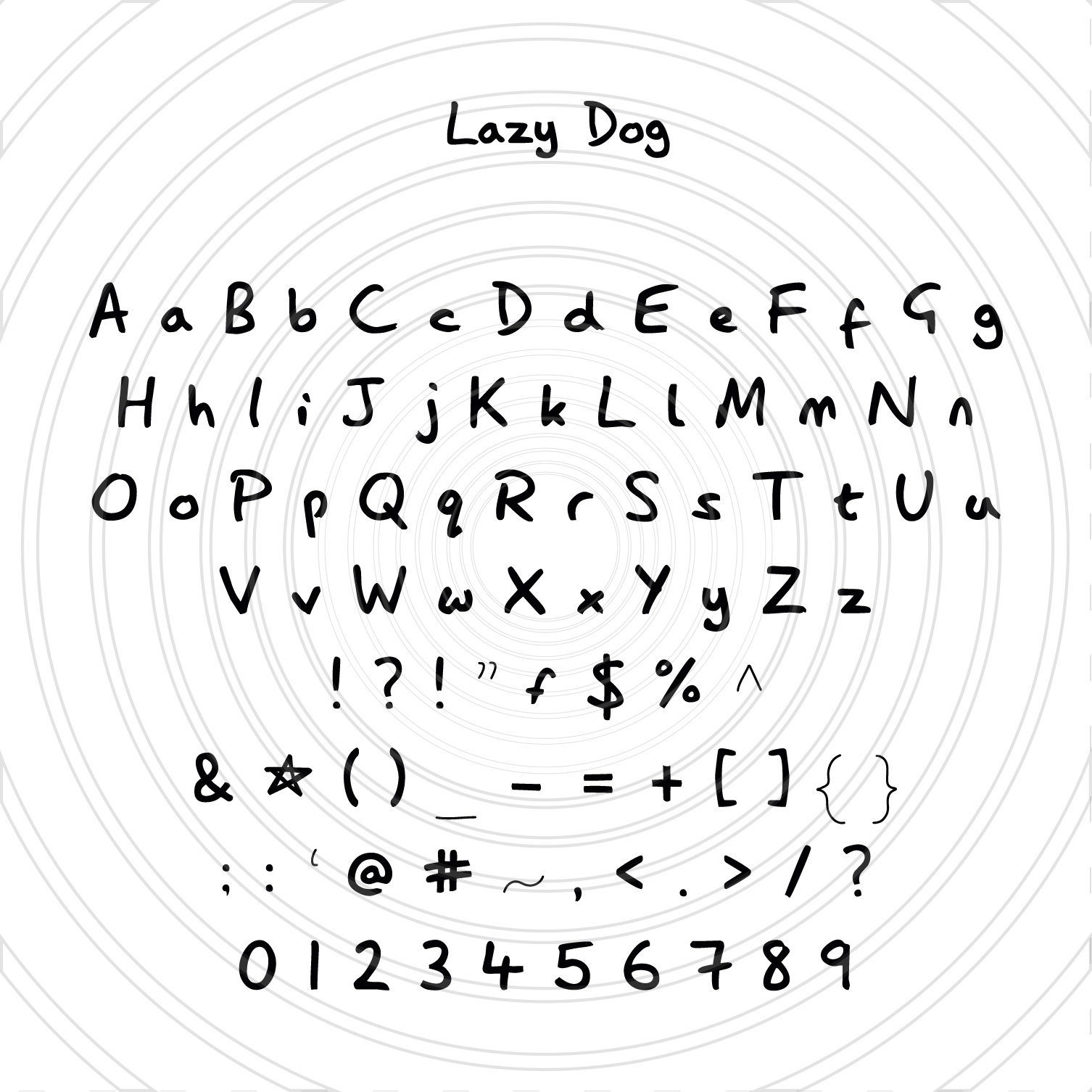
Lazy Dog Font
Lazy Dog Font - The font is designed and published by paul. Web lazy dog font is an elegant handwritten typeface with subtle and friendly details. You can find more information about lazy. Lazy dog font free is a new script and calligraphy font. Web lazy dog font | dafont.com english français español deutsch italiano português. It was created and released by love j., with its cool style, this font can add a. 4 users have given the font a rating of 5.0 out of 5. Web lazy dog regular is a regular truetype font. Web 36,182 downloads (1 yesterday) 1 comment 100% free download lazydog.ttf note of the author download for free lazy dog, handwritten curly and fun. It has been downloaded 1757 times.
Web lazy dog font is an elegant handwritten typeface with subtle and friendly details. You can find more information about lazy. Web lazy dog font | dafont.com english français español deutsch italiano português. 4 users have given the font a rating of 5.0 out of 5. It was created and released by love j., with its cool style, this font can add a. Lazy dog font free is a new script and calligraphy font. It has been downloaded 1757 times. Web 36,182 downloads (1 yesterday) 1 comment 100% free download lazydog.ttf note of the author download for free lazy dog, handwritten curly and fun. The font is designed and published by paul. Web lazy dog regular is a regular truetype font.
Web 36,182 downloads (1 yesterday) 1 comment 100% free download lazydog.ttf note of the author download for free lazy dog, handwritten curly and fun. Web lazy dog font is an elegant handwritten typeface with subtle and friendly details. It has been downloaded 1757 times. 4 users have given the font a rating of 5.0 out of 5. It was created and released by love j., with its cool style, this font can add a. You can find more information about lazy. Lazy dog font free is a new script and calligraphy font. Web lazy dog regular is a regular truetype font. Web lazy dog font | dafont.com english français español deutsch italiano português. The font is designed and published by paul.
It was created and released by love j., with its cool style, this font can add a. Web lazy dog regular is a regular truetype font. It has been downloaded 1757 times. Lazy dog font free is a new script and calligraphy font. Web lazy dog font is an elegant handwritten typeface with subtle and friendly details.
Web lazy dog regular is a regular truetype font. The font is designed and published by paul. 4 users have given the font a rating of 5.0 out of 5. You can find more information about lazy. Web lazy dog font | dafont.com english français español deutsch italiano português.
4 users have given the font a rating of 5.0 out of 5. Web lazy dog regular is a regular truetype font. You can find more information about lazy. It has been downloaded 1757 times. Web lazy dog font | dafont.com english français español deutsch italiano português.
Web 36,182 downloads (1 yesterday) 1 comment 100% free download lazydog.ttf note of the author download for free lazy dog, handwritten curly and fun. It was created and released by love j., with its cool style, this font can add a. Web lazy dog font | dafont.com english français español deutsch italiano português. You can find more information about lazy..
The font is designed and published by paul. Web lazy dog font is an elegant handwritten typeface with subtle and friendly details. 4 users have given the font a rating of 5.0 out of 5. Web 36,182 downloads (1 yesterday) 1 comment 100% free download lazydog.ttf note of the author download for free lazy dog, handwritten curly and fun. Web.
Web lazy dog font | dafont.com english français español deutsch italiano português. Web lazy dog regular is a regular truetype font. It has been downloaded 1757 times. 4 users have given the font a rating of 5.0 out of 5. It was created and released by love j., with its cool style, this font can add a.
Web lazy dog font is an elegant handwritten typeface with subtle and friendly details. You can find more information about lazy. Web 36,182 downloads (1 yesterday) 1 comment 100% free download lazydog.ttf note of the author download for free lazy dog, handwritten curly and fun. The font is designed and published by paul. It was created and released by love.
Web lazy dog font is an elegant handwritten typeface with subtle and friendly details. Web lazy dog regular is a regular truetype font. Web lazy dog font | dafont.com english français español deutsch italiano português. It has been downloaded 1757 times. Lazy dog font free is a new script and calligraphy font.
Web lazy dog regular is a regular truetype font. Web 36,182 downloads (1 yesterday) 1 comment 100% free download lazydog.ttf note of the author download for free lazy dog, handwritten curly and fun. The font is designed and published by paul. 4 users have given the font a rating of 5.0 out of 5. Web lazy dog font is an.
Web lazy dog font is an elegant handwritten typeface with subtle and friendly details. The font is designed and published by paul. 4 users have given the font a rating of 5.0 out of 5. Web 36,182 downloads (1 yesterday) 1 comment 100% free download lazydog.ttf note of the author download for free lazy dog, handwritten curly and fun. You.
The font is designed and published by paul. Web lazy dog font is an elegant handwritten typeface with subtle and friendly details. Web 36,182 downloads (1 yesterday) 1 comment 100% free download lazydog.ttf note of the author download for free lazy dog, handwritten curly and fun. 4 users have given the font a rating of 5.0 out of 5.